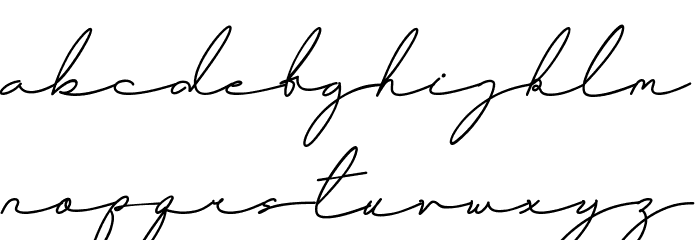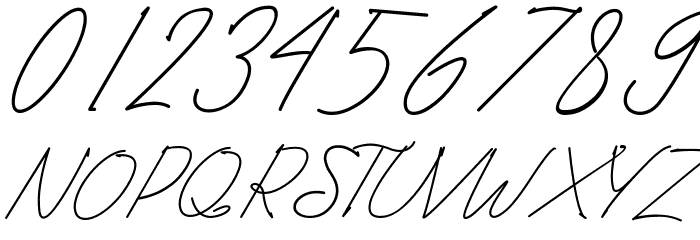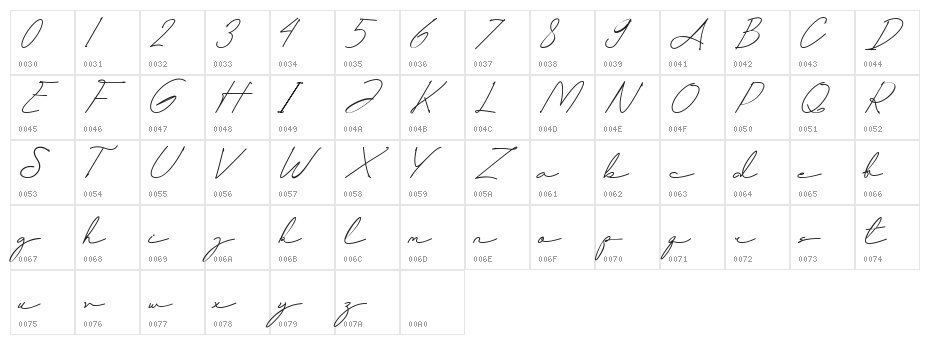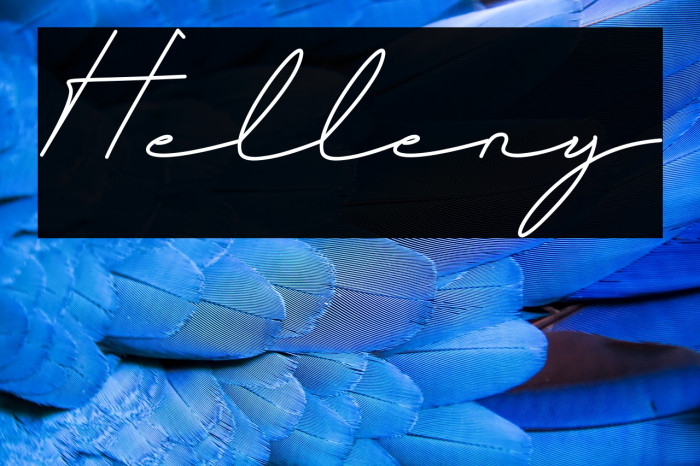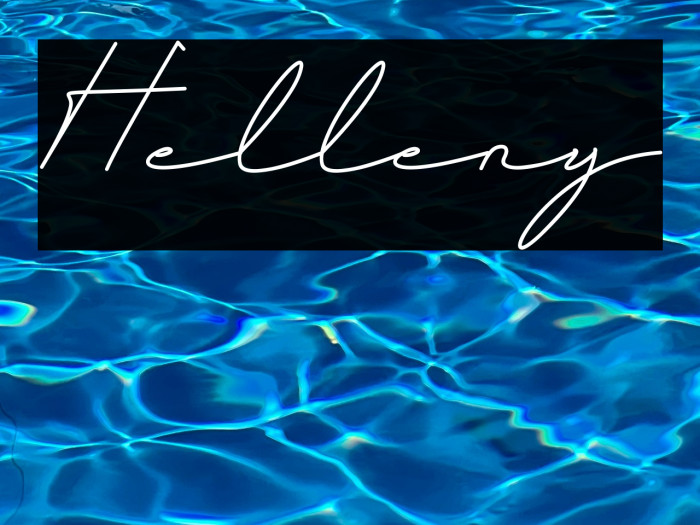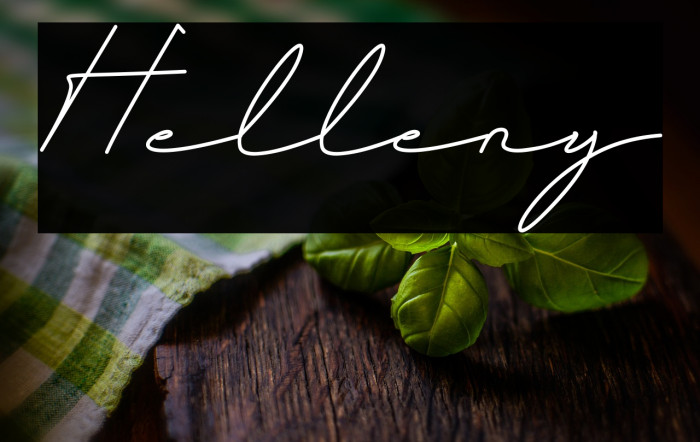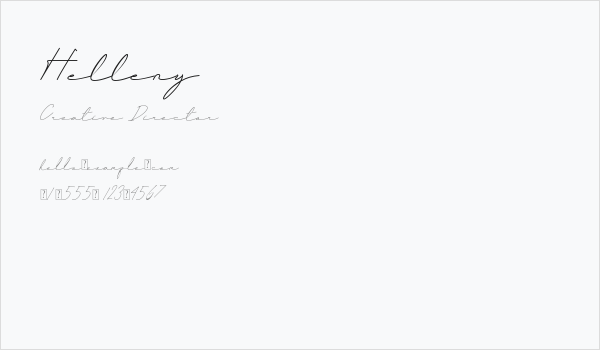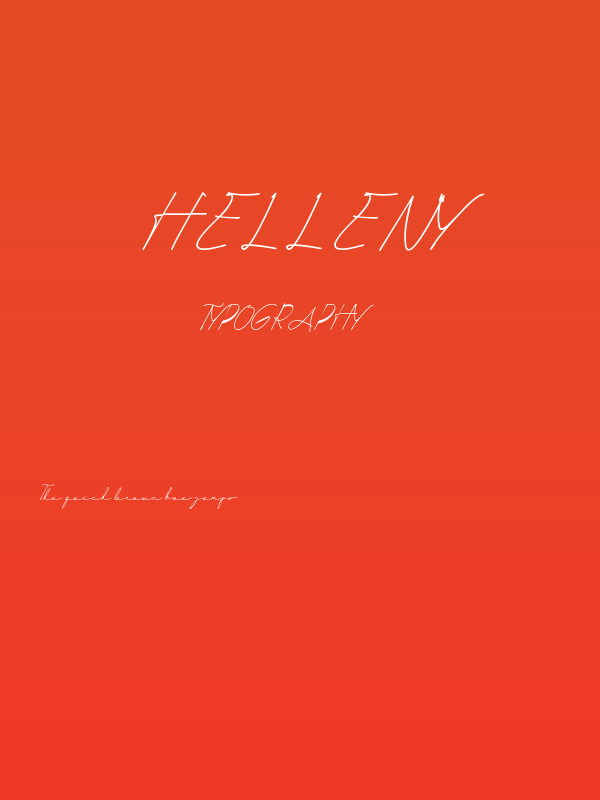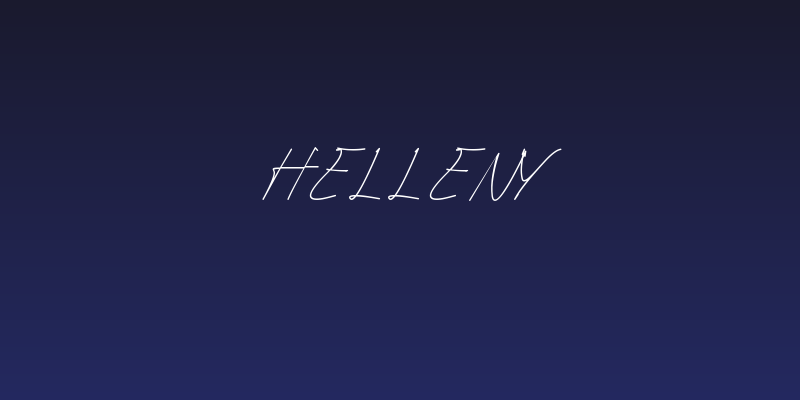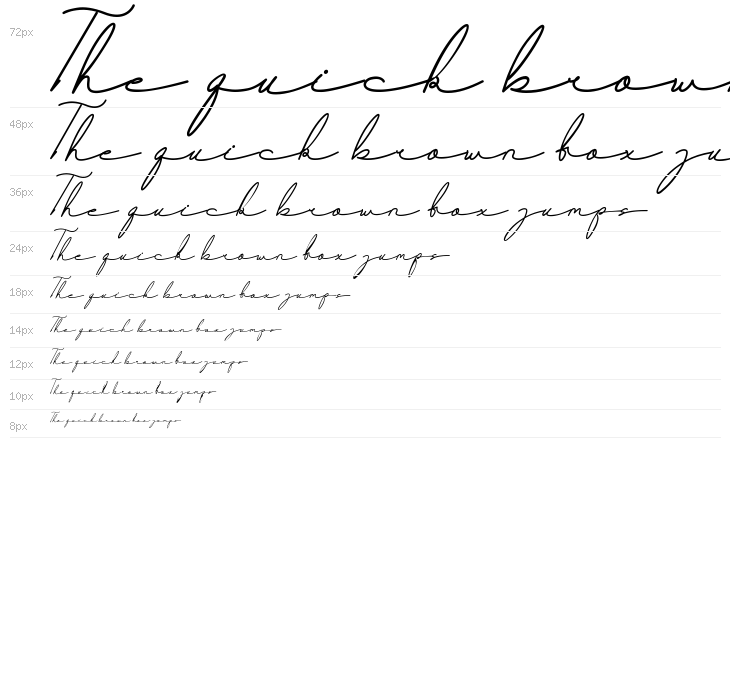
Helleny Font
This font features a flowing, cursive style that mimics elegant handwriting. The characters are connected, creating a seamless and fluid appearance. The uppercase letters are slightly larger and more pronounced, while the lowercase letters maintain a consistent, graceful flow. The numerals are distinct yet harmonize well with the overall script style. Special characters are integrated smoothly, maintaining the font's cohesive look. The strokes are thin and delicate, adding to the font's sophisticated and refined aesthetic.
A graceful, cursive script font with a flowing, elegant style.
- Font: Helleny
- Proposed Projects: Ideal for wedding invitations, personal branding, greeting cards, and elegant logo designs.
- Category: Script
- Overall Style: Elegant
- Use Case: Logos, Invitations, Personal Branding